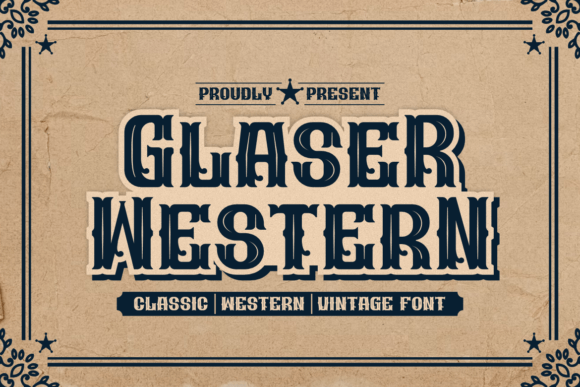
Glaser Western Font: A Bold and Assertive Slab Serif Font
The world of typography is vast and diverse, with numerous fonts available for various design needs. Among these, the Glaser Western font stands out for its unique characteristics and versatility. In this article, we’ll delve into the details of the Glaser Western font, exploring its features, uses, and benefits, as well as why it’s an excellent addition to any font library.
What is Glaser Western Font?
Glaser Western is a bold and assertive slab serif font designed to make a statement. Its robust and sturdy appearance makes it perfect for headlines, titles, and short texts that require a strong visual impact. The font’s slab serif design gives it a distinctive look that sets it apart from other serif fonts.
Developed by renowned type designer, Erich Møller, Glaser Western was initially intended for use in newspaper and magazine headlines. However, its versatility has made it a popular choice for a wide range of design applications.
Why Choose Glaser Western Font?
Glaser Western font offers several benefits that make it an excellent choice for designers and typographers:
- Bold and Assertive: The font’s bold and assertive design makes it perfect for grabbing attention and conveying confidence.
- Versatile: Glaser Western can be used for various design projects, from posters and flyers to digital media and branding.
- Legible: The font’s slab serif design ensures excellent legibility, even at small sizes.
- Unique: Glaser Western’s distinctive look sets it apart from other fonts, making it an excellent choice for designers looking to create something unique.
Use Cases for Glaser Western Font
Glaser Western font is suitable for various design projects, including:
- Headlines and Titles: The font’s bold design makes it perfect for headlines and titles that require a strong visual impact.
- Posters and Flyers: Glaser Western is an excellent choice for posters and flyers that need to grab attention.
- Branding and Logo Design: The font’s unique design makes it suitable for branding and logo design projects.
- Digital Media: Glaser Western can be used for digital media, such as social media graphics, email headers, and website titles.
Pairing Glaser Western Font with Other Fonts
Pairing Glaser Western with other fonts can create a harmonious and visually appealing design. Here are some font pairing suggestions:
- Serif Fonts: Pair Glaser Western with serif fonts like Garamond or Bodoni for a classic look.
- Sans-Serif Fonts: Combine Glaser Western with sans-serif fonts like Avenir or Helvetica for a modern contrast.
- Script Fonts: Pair Glaser Western with script fonts like Pacifico or Lobster for a touch of elegance.
In conclusion, Glaser Western font is a bold and assertive slab serif font that offers a unique combination of style, versatility, and legibility. Its robust design makes it perfect for headlines, titles, and short texts that require a strong visual impact. Whether you’re a designer, typographer, or simply a font enthusiast, Glaser Western is an excellent addition to any font library.
With its wide range of use cases, from posters and flyers to digital media and branding, Glaser Western font is sure to elevate any design project. So, why not give it a try and experience the benefits of this incredible font for yourself?